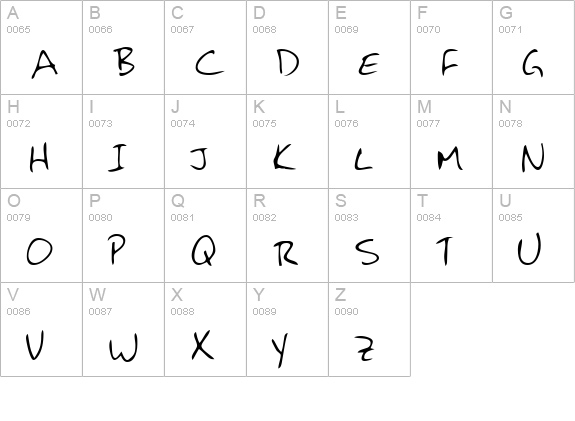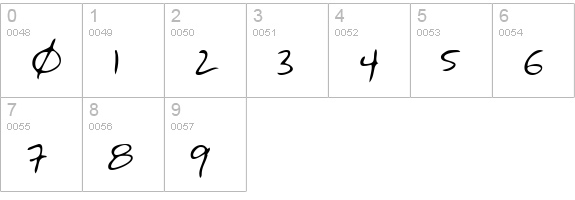
HansonsHand Font Details
HansonsHand font is a charming and whimsical typeface that adds a touch of playfulness to any design project. With its handwritten style and carefully crafted curves, this font exudes a sense of warmth and friendliness. Whether used for invitations, greeting cards, logos, or any other creative endeavor, HansonsHand instantly adds a personal and unique touch. But what sets this font apart is that it is not only visually appealing but also completely free! That's right, you can download HansonsHand font for absolutely no cost at FontsMarket.com. This means that you can enjoy all the benefits of this delightful typeface without spending a dime. The designers behind HansonsHand understand the importance of accessibility and believe that everyone should have access to high-quality fonts. That's why they have made this font freely available, ensuring that creatives of all backgrounds can bring their visions to life without breaking the bank. Whether you are a professional designer, a hobbyist, or simply someone looking to add a little flair to your personal projects, HansonsHand font is the perfect choice. With its free availability and versatile design, it is a font that truly stands out from the crowd. So why wait? Head over to FontsMarket.com today and download HansonsHand font to start adding a touch of whimsy to your designs. With its handwritten charm and cost-free availability, this font is sure to become a favorite among designers and enthusiasts alike.